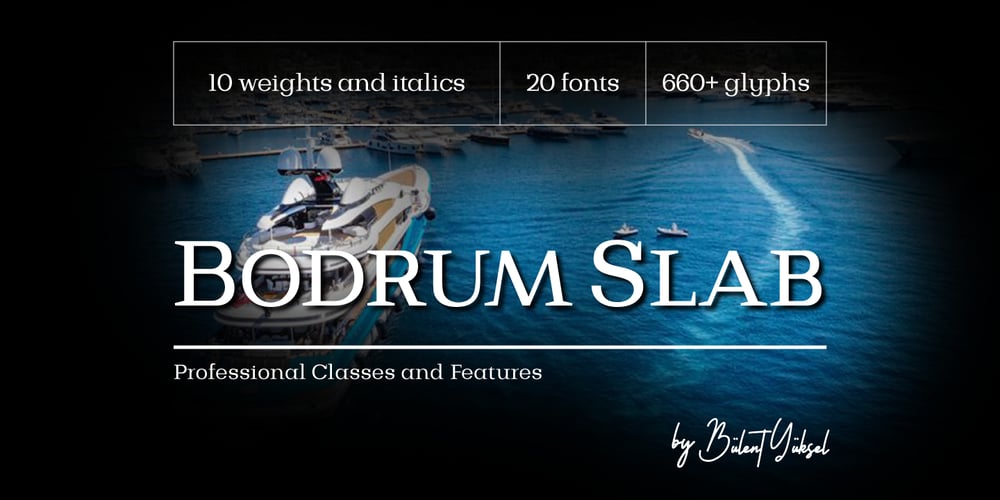
Bodrum Slab
Bodrum Slab font
Bodrum Slab Font Family was designed by Bülent Yüksel and published by Bülent Yüksel. Bodrum Slab contains 20 styles and family package options. “Bodrum Slab” is a slab serif type family. Designed by Bülent Yüksel in 20018/19. The font, influenced by style serifs, popular in the 1920s and 30s, is based on optically corrected geometric forms for better readability.“Bodrum Slab” is not purely geometric; it has vertical strokes that are thicker than the horizontals, an “o” that is not a perfect circle, and shortened ascenders. These nuances aid in legibility and give “Bodrum Slab” a harmonious and sensible appearance for both texts and headlines.Bodrum Slab provides advanced typographical support for Latin-based languages. An extended character set, supporting Central, Western and Eastern European languages, rounds up the family.The designation “Bodrum Slab 14 Regular” forms the central point. “Bodrum Slab” is available in 10 weights (Hair, Thin, Extra-Light, Light, Regular, Meduim, Bold, Extra-Bold, Heavy and Black) and 10 matching italics. The family contains a set of 650+ characters.Case-Sensitive Forms, Classes and Features, Small Caps from Letter Cases, Fractions, Superior, Inferior, Denominator, Numerator, Old Style Figures just one touch easy In all graphic programs.Bodrum Slab is the perfect font for web use.